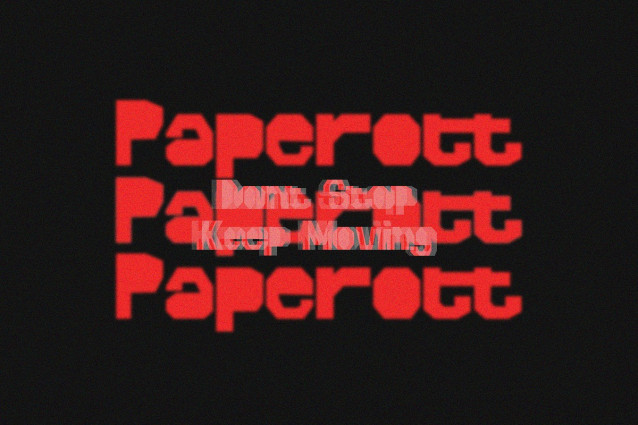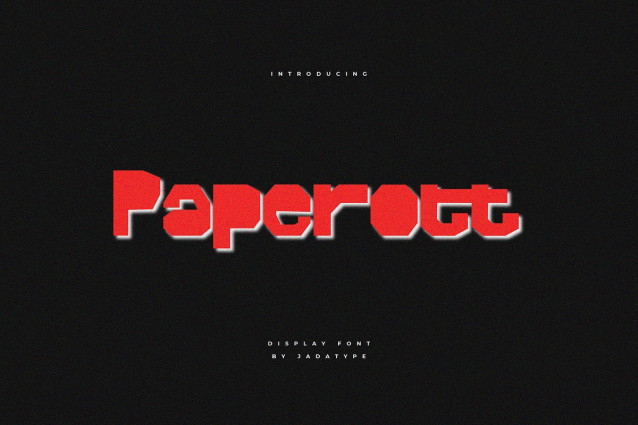
Paperott Display Font
Paperott Display Font is a creative paper-cut style font featuring bold, hand-cut edges for a playful, crafted look. Perfect for DIY projects, posters, and unique designs, it adds a charming, handcrafted touch that stands out with artistic flair.